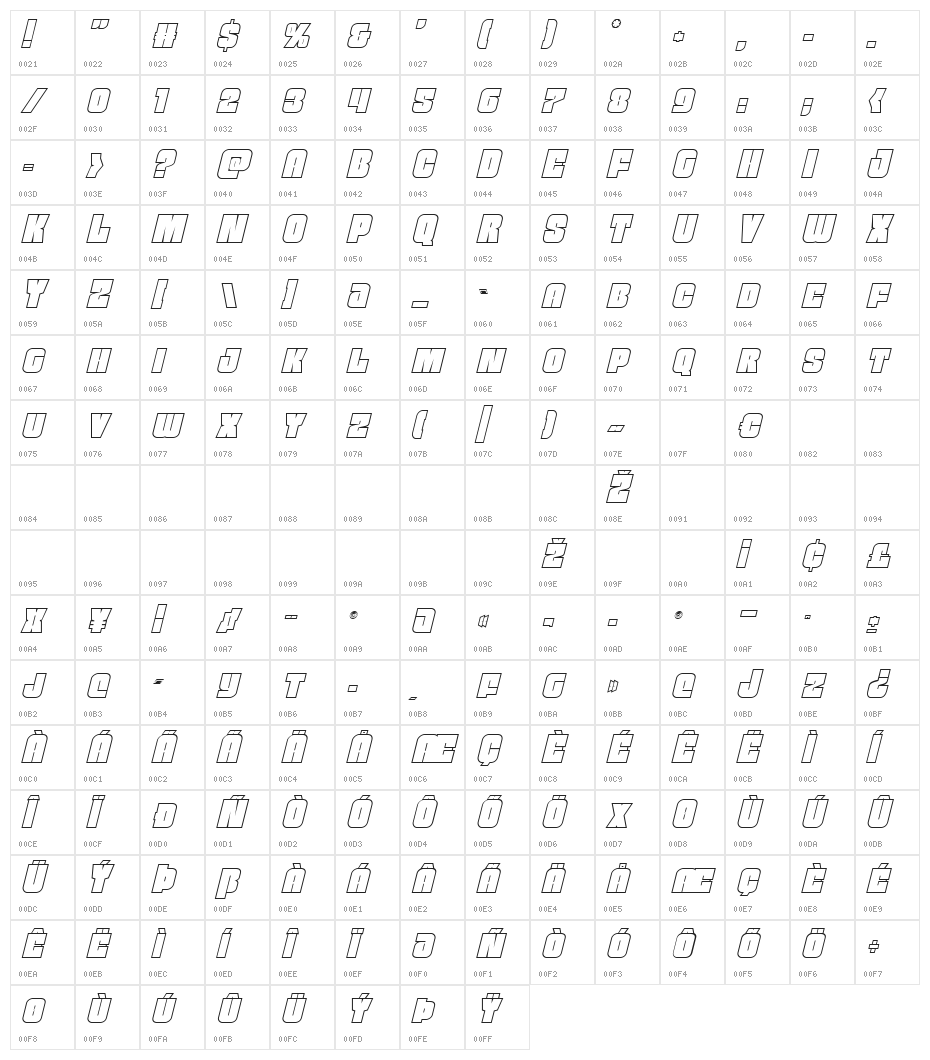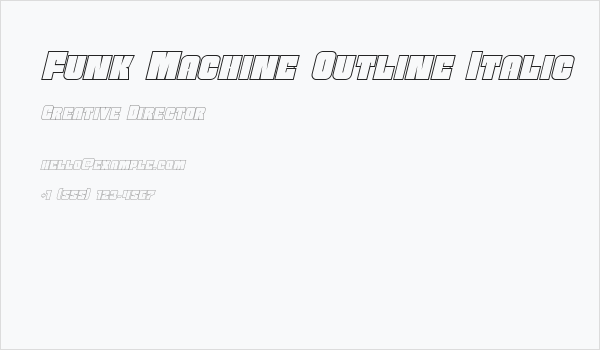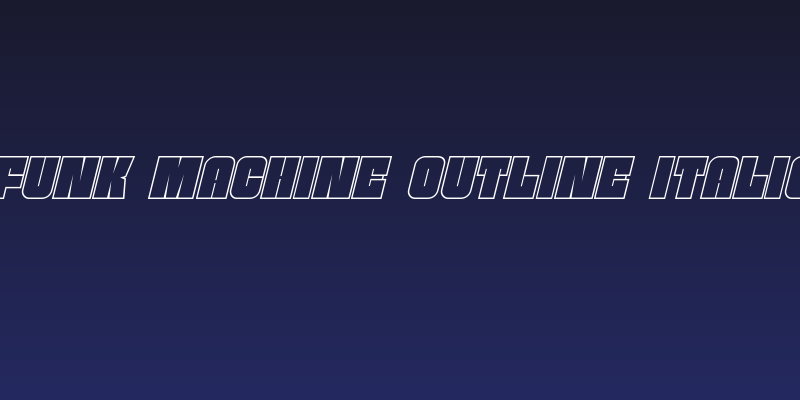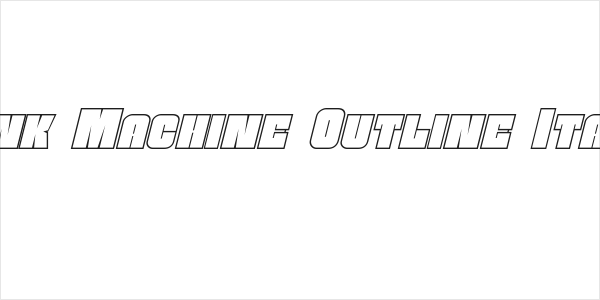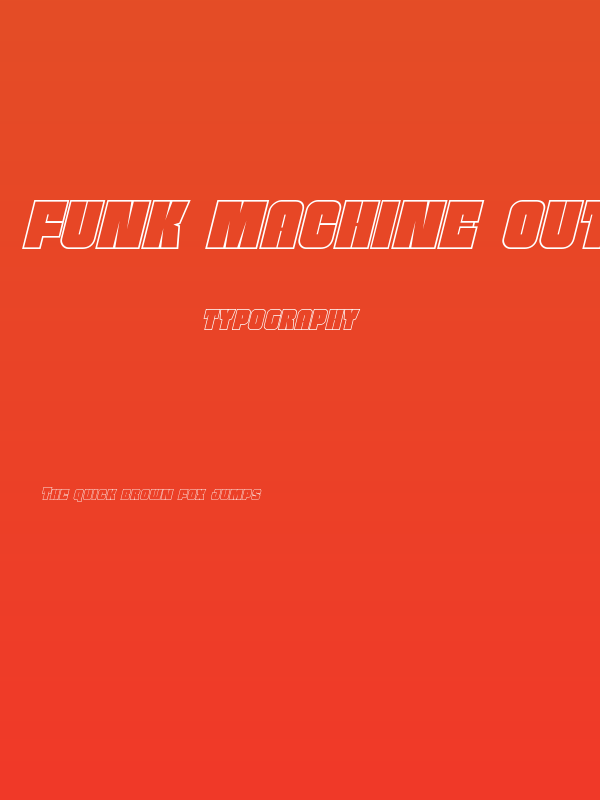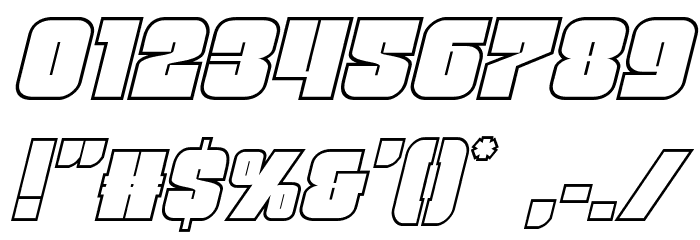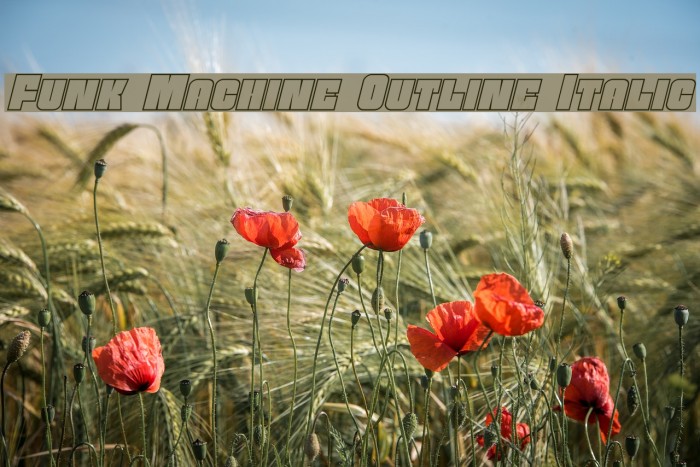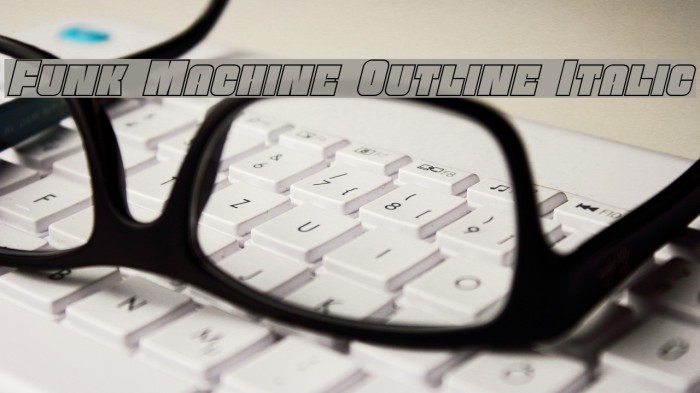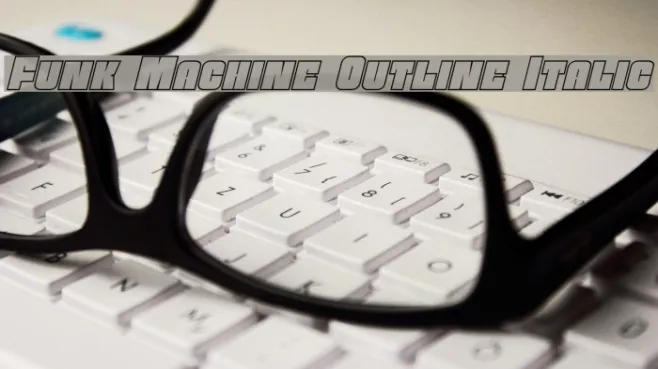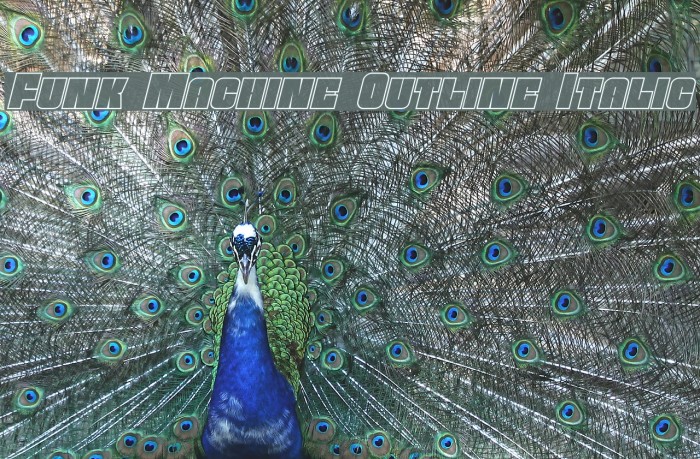
Funk Machine Outline Italic Font
Funk Machine Outline Italic Description
This font features a bold, outlined style with a distinct italic slant, giving it a dynamic and energetic appearance. The characters are uppercase and have a geometric, block-like structure, which is emphasized by the thick outlines. This design choice enhances readability while maintaining a modern and edgy look. The font's angular cuts and sharp edges contribute to its futuristic aesthetic, making it suitable for projects that require a strong visual impact. The spacing between characters is tight, which adds to the compact and cohesive feel of the text. The numbers and special characters maintain the same stylistic elements, ensuring consistency across all glyphs.
| Proposed Projects | Ideal for branding, posters, album covers, and any project needing a bold, futuristic look. |